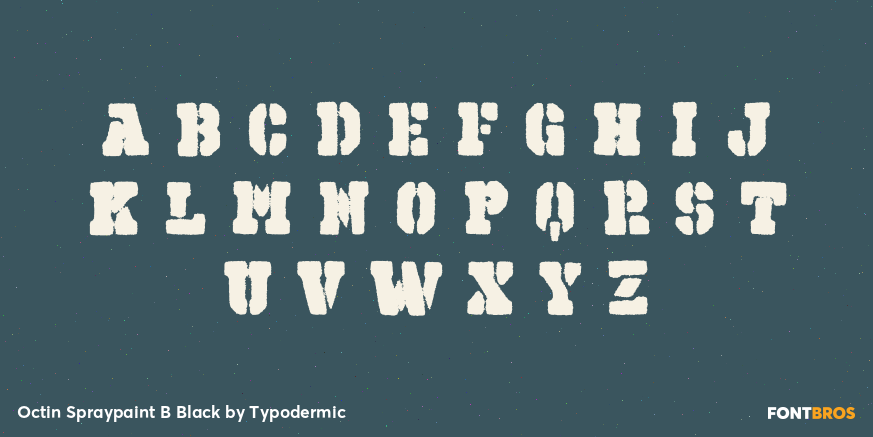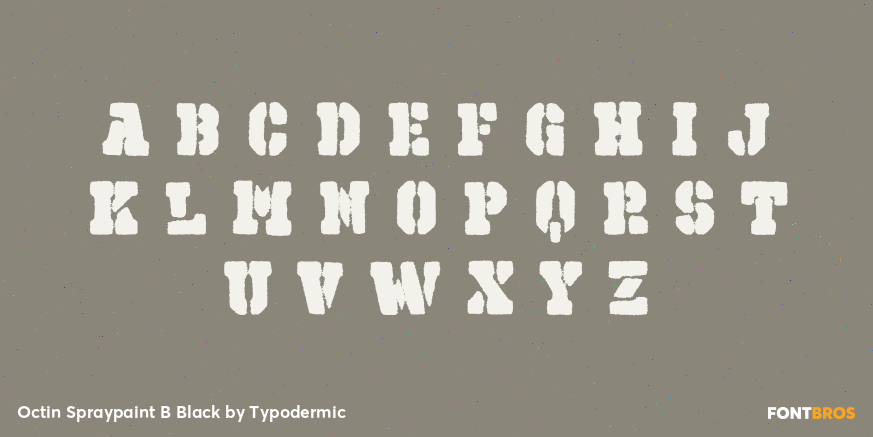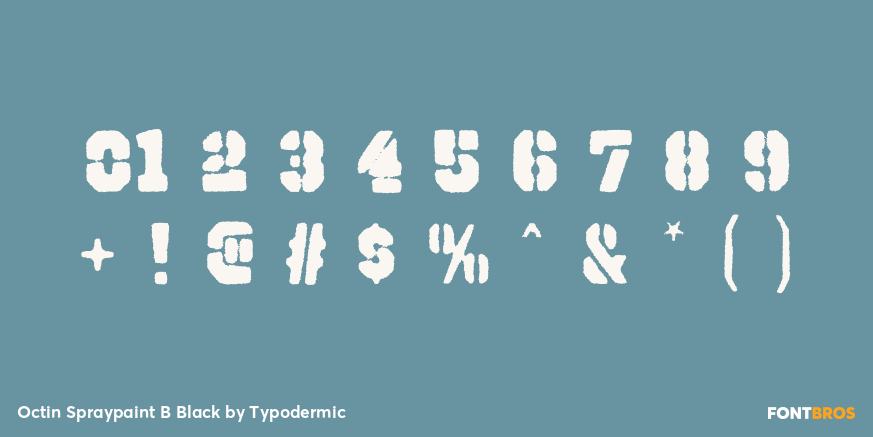
Octin Spraypaint B Black
Octin Spraypaint B combines the family’s freshly applied paint texture with an angular slab-serif alphabet. Squared serifs broaden the stroke endings and give names and slogans a more forceful athletic character, while stencil gaps and broken coverage preserve the temporary, physically applied look. It shares its surface treatment with Octin Spraypaint A but replaces that branch’s plain sans structure with a more decorated silhouette.
Use Octin Spraypaint B for championship campaigns, supporter merchandise, urban-sports events, faction names, street-level posters, pop-up installations, and capsule-apparel graphics that need the authority of a slab serif without losing the immediacy of sprayed paint. Keep it to prominent all-caps wording and allow enough size for both the serifs and rough surface to register. Regular, Bold, and Black carry the same construction at increasing weight.
Octin Spraypaint B Black by Typodermic